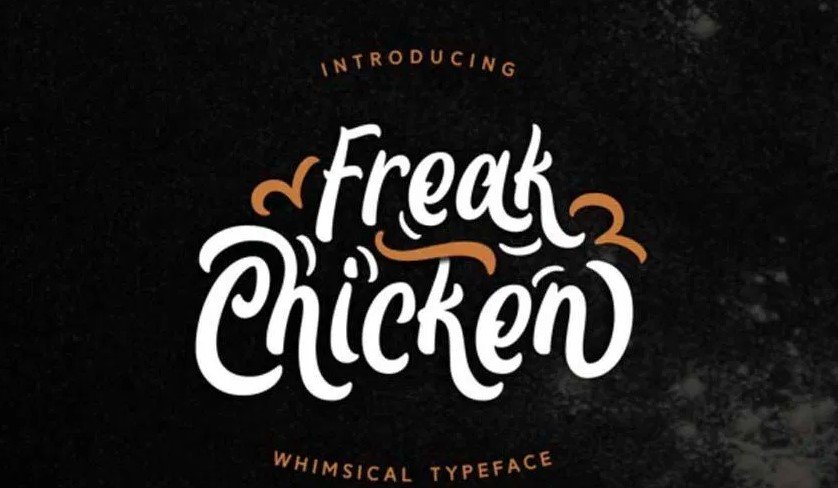
The font can beautiful shapes and characters alternates which is beneficial thing of this font, the typeface has unique look and contains all the qualities of
The font can beautiful shapes and characters alternates which is beneficial thing of this font, the typeface has unique look and contains all the qualities of paid fonts in this font, the font is provided in ttf and otf for easily installation in windows, mac or any other operating systems.
The Freak Chicken Font is the famous, unqiue and stylish brush typeface that is suitable for all the projects.